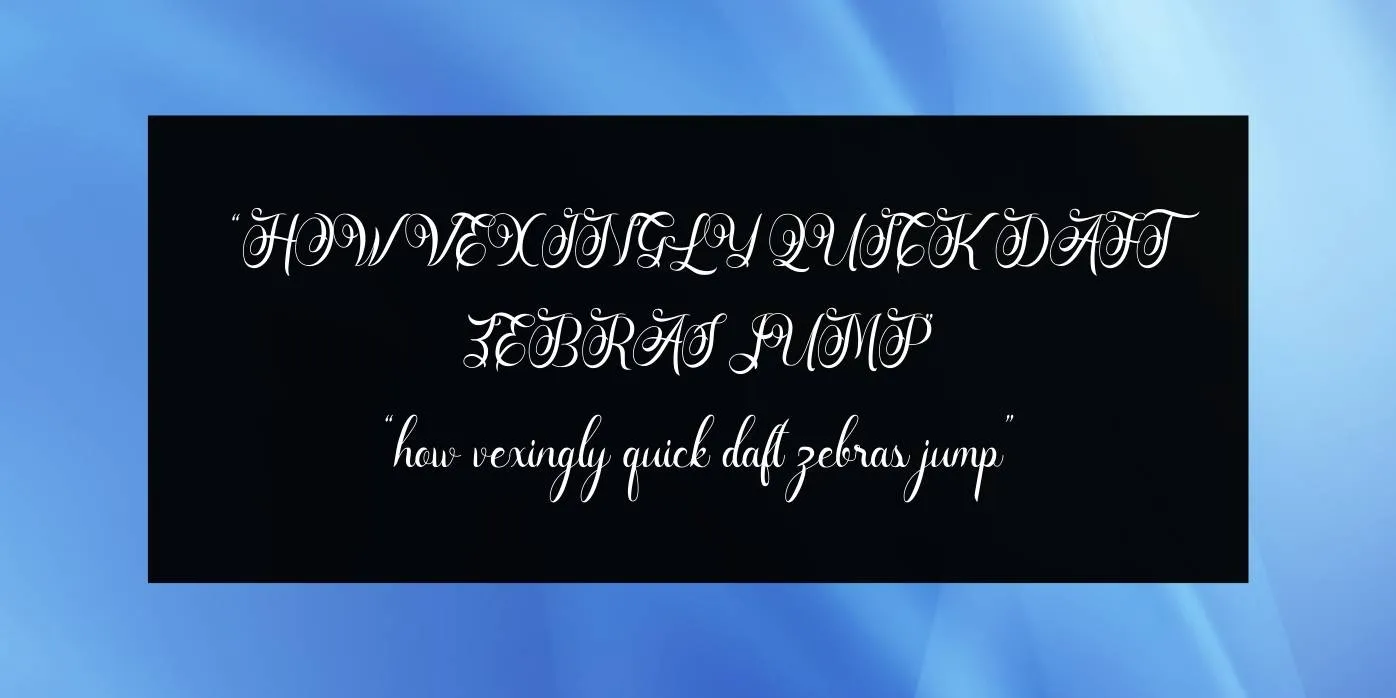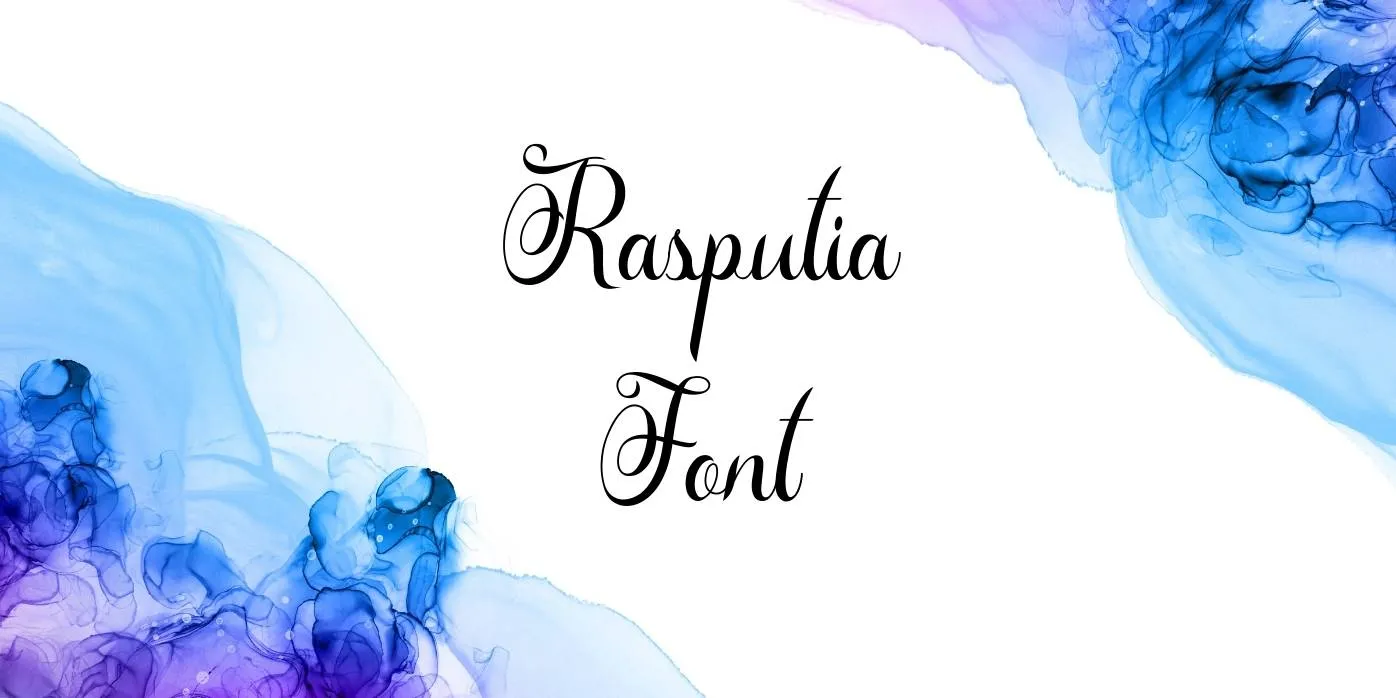
Rasputia Font
We discuss detailed information about Rasputia font. This font is best for calligraphy. It was designed by Putracetol. All rights reserved by Putracetol.
It is inspired by hand lettering and by calligraphy. It has characters, small letters, capital letters, numbers, punctuations, special characters, and symbols. This font contains 491 characters in it. This is a very elegant font and takes less time to be written.
The weight of the font is normal and the width of the font is Medium (normal). This typeface has a pairing quality with other fonts like vitrina font. It can be used on many devices such as Windows/PC and Mac. You can use an online generator tool so the copy and paste function can be performed easily.